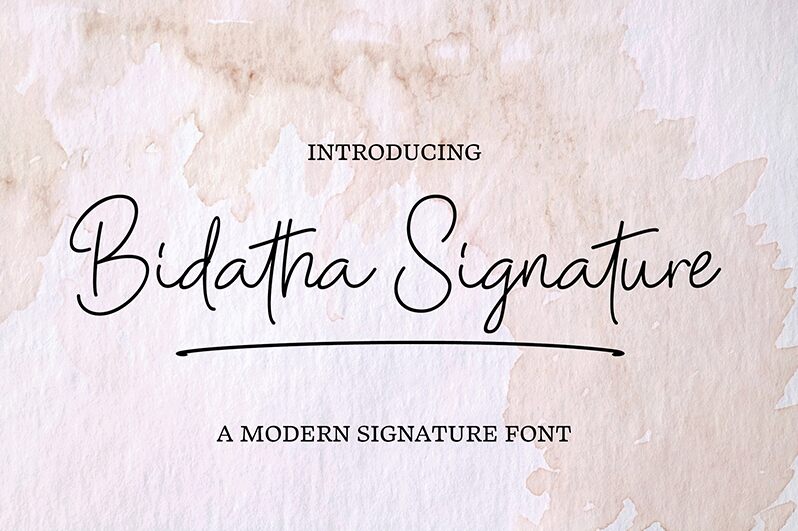
Bidatha Signature, designed by MJType, is a stunning handwritten font with a light weight. Perfect for adding an elegant and personal touch to any project, this font is ideal for wedding invitations, greeting cards, and other special occasion materials. Its delicate strokes and flowing lines make it a great choice for feminine branding projects such as beauty products or fashion labels. Bidatha Signature's unique character also lends itself well to social media graphics and website headers, giving your digital presence a personal touch that stands out from the crowd. Add this beautiful semi-bold typeface to your design arsenal today!